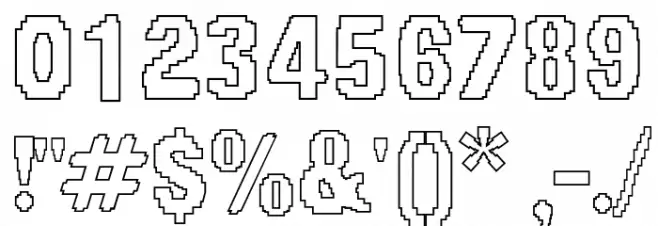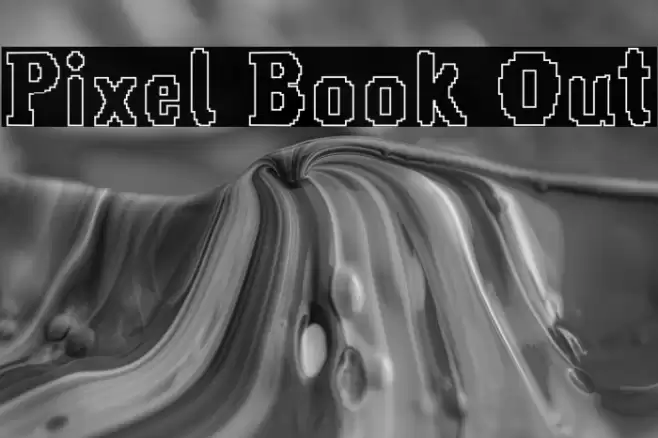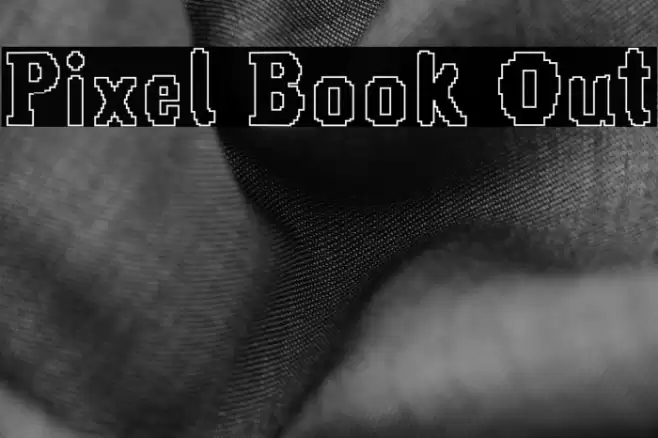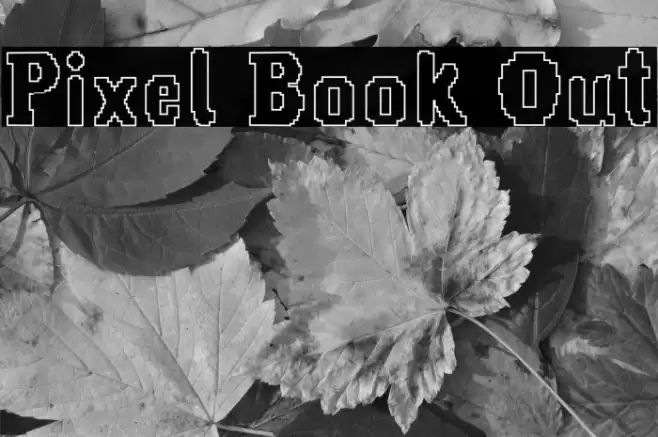
Pixel Book Out Font
Pixel Book Out Description
This font features a distinct pixelated outline style, reminiscent of retro digital displays and classic video game aesthetics. Each character is constructed with a blocky, geometric form, giving it a bold and eye-catching appearance. The uppercase and lowercase letters maintain a consistent height, enhancing readability while preserving the unique pixelated charm. Numbers and special characters are equally stylized, ensuring a cohesive look across all glyphs. The font's playful yet structured design makes it ideal for projects that require a nostalgic or tech-inspired feel.
A pixelated outline font with a retro digital aesthetic from Uncategorized fonts.
- Proposed Projects: Ideal for video game graphics, retro-themed posters, digital art projects, and tech-inspired branding.
- Overall Style: Retro, Digital